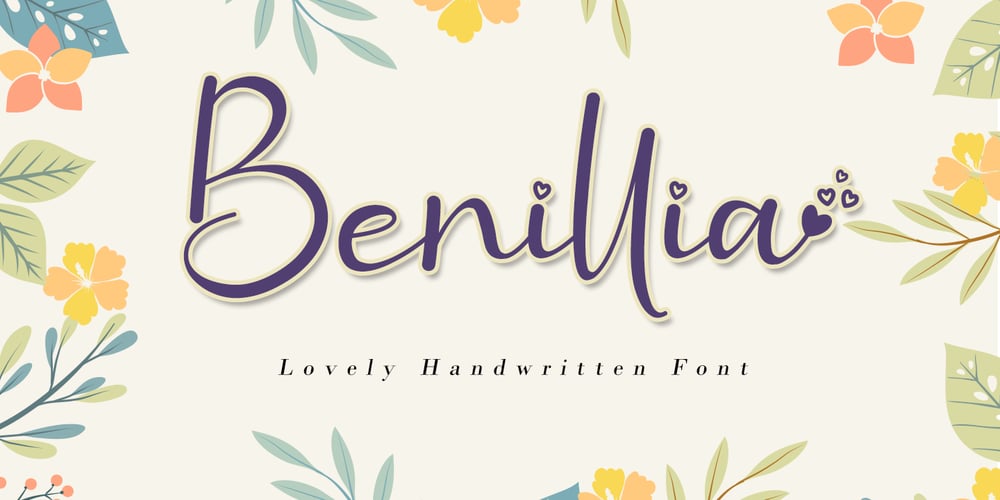
Benillia Font Family was designed by Agung Eko Nugroho and published by AEN Creative Studio. Benillia contains 2 styles and family package options. Benillia is a sweet and delicate handwritten font. It looks stunning on wedding invitations, thank you cards, quotes, greeting cards, logos, business cards and every other design which needs a handwritten touch. It features a varying baseline, smooth lines, gorgeous glyphs and stunning alternates.